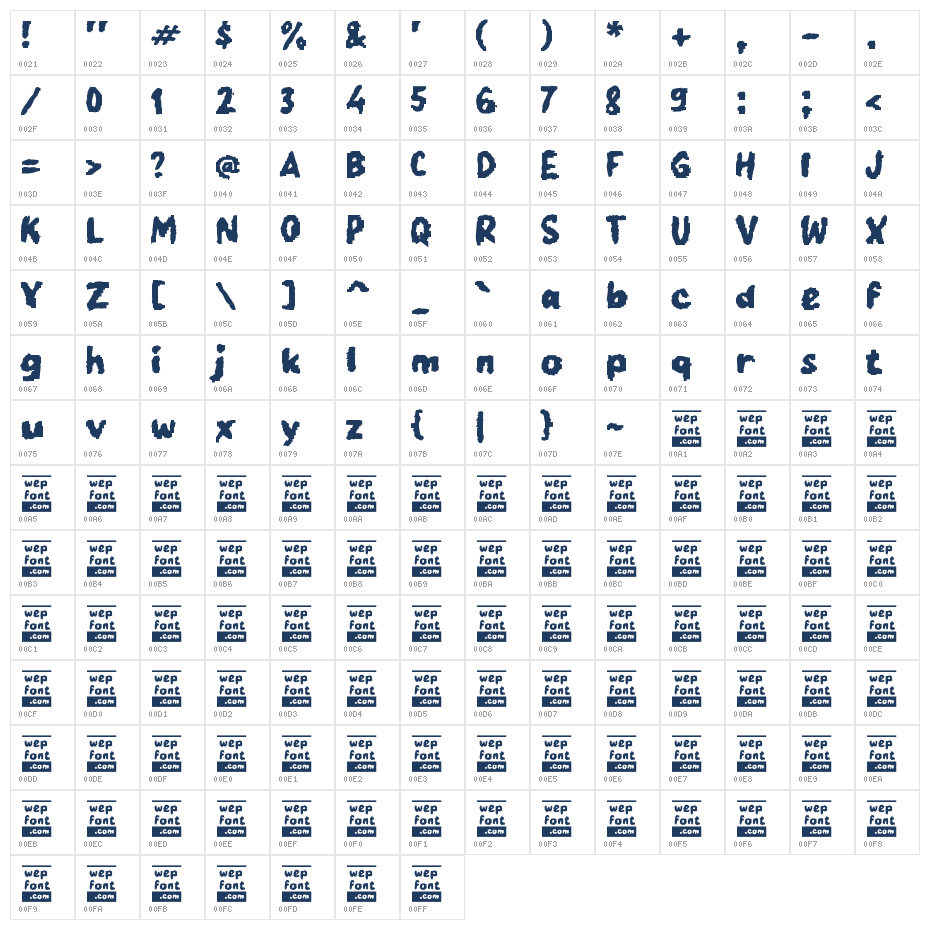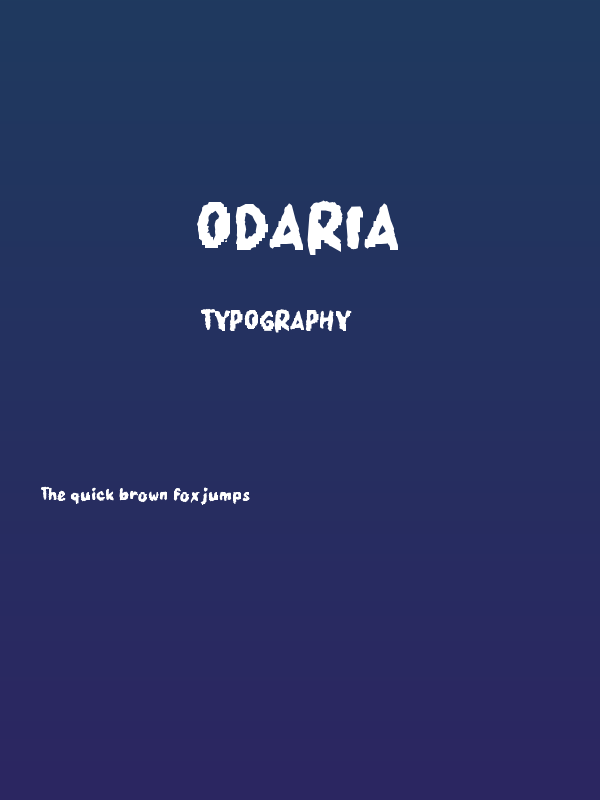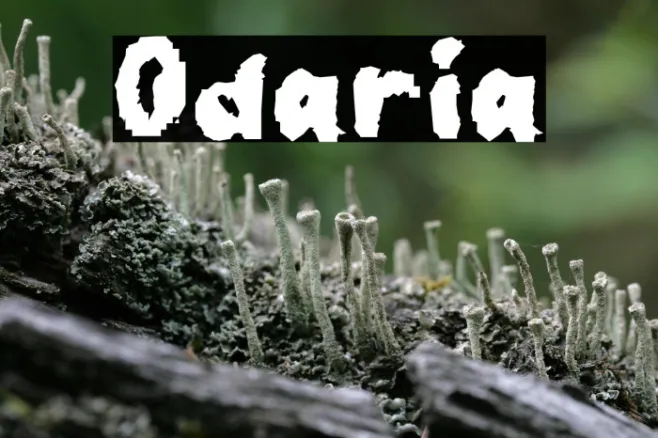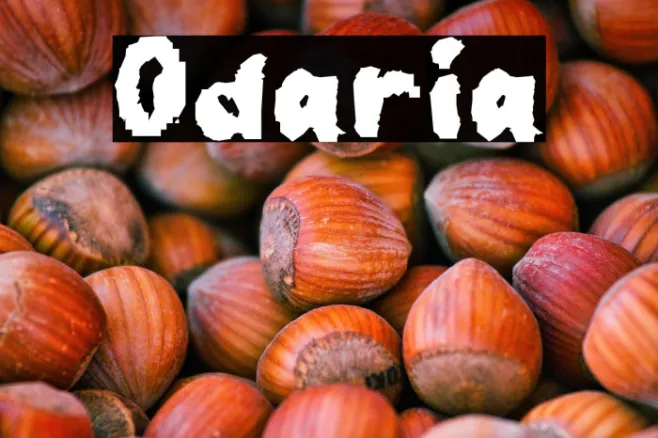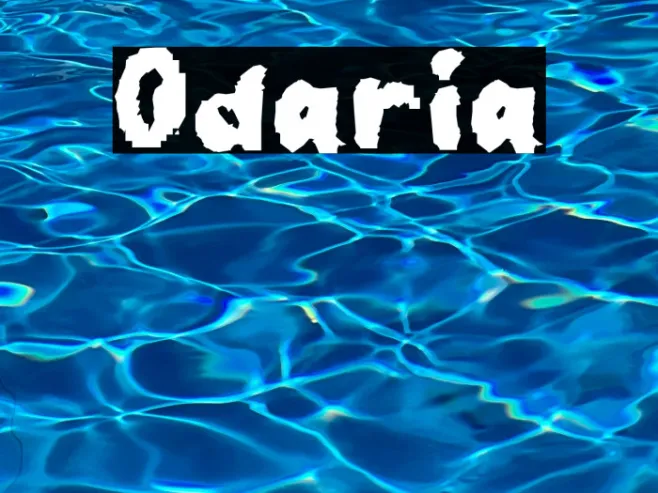
Odaria Font
Odaria Description
A bold, rough, textured display font with an irregular, jagged appearance, resembling a hand-painted or brush-stroke style.
| Overall Style | Grunge, Handcrafted, Edgy |
| Use Case | Headlines, Posters, Logos, Creative branding |